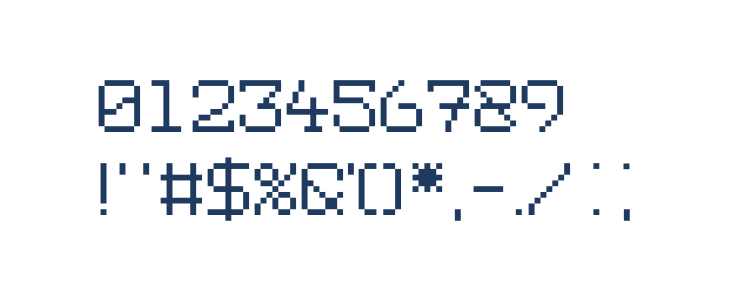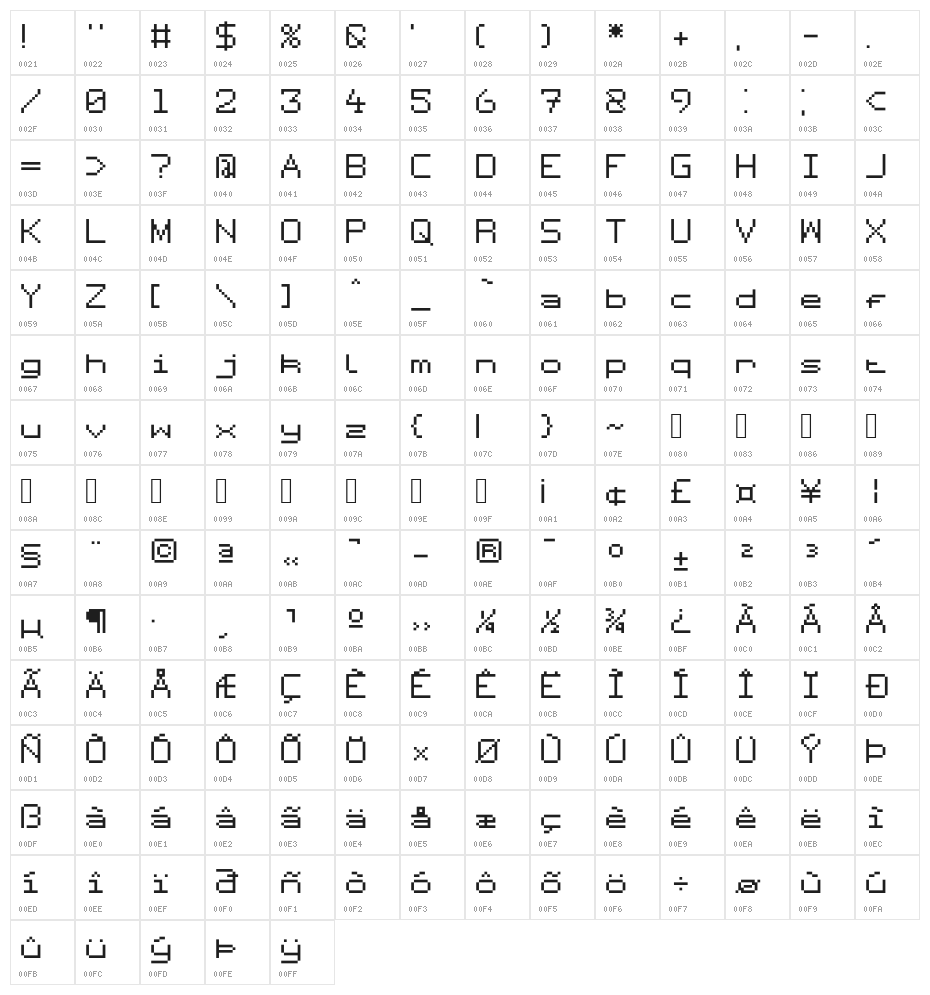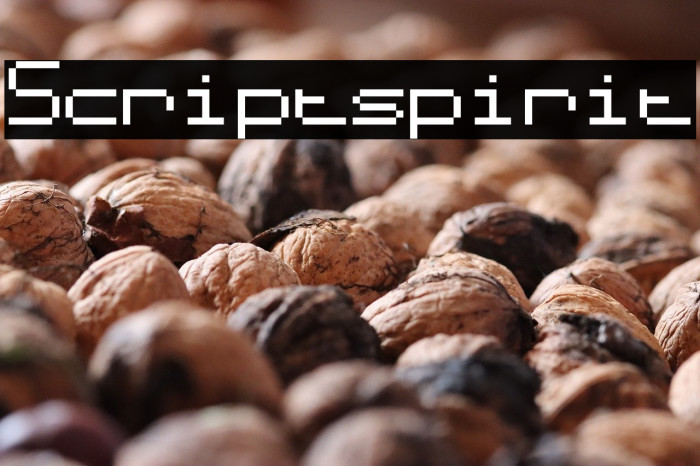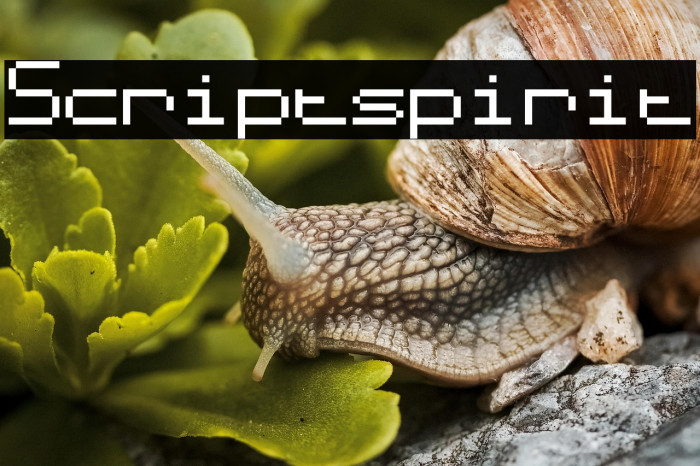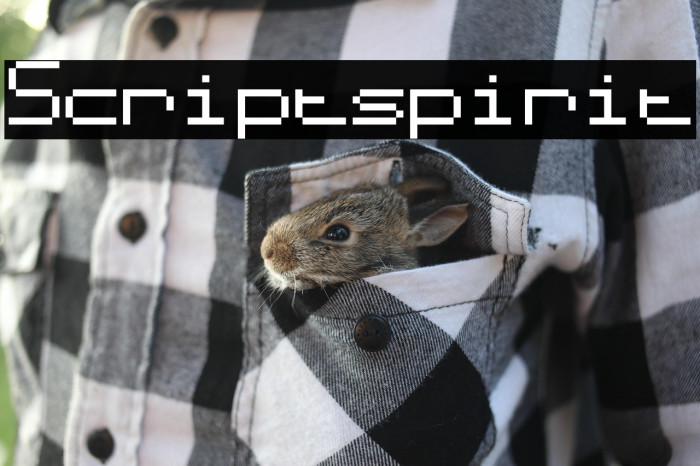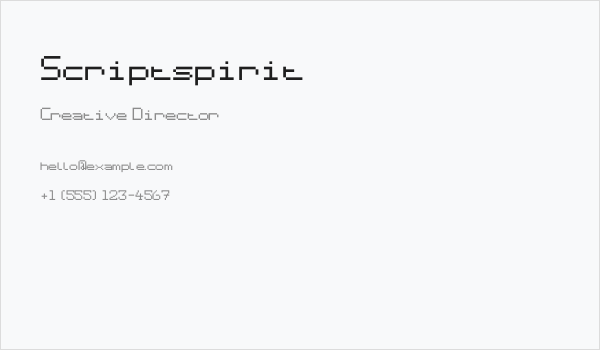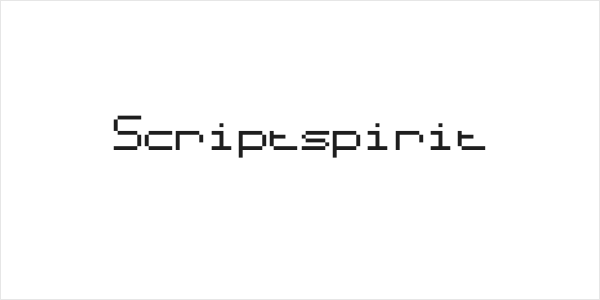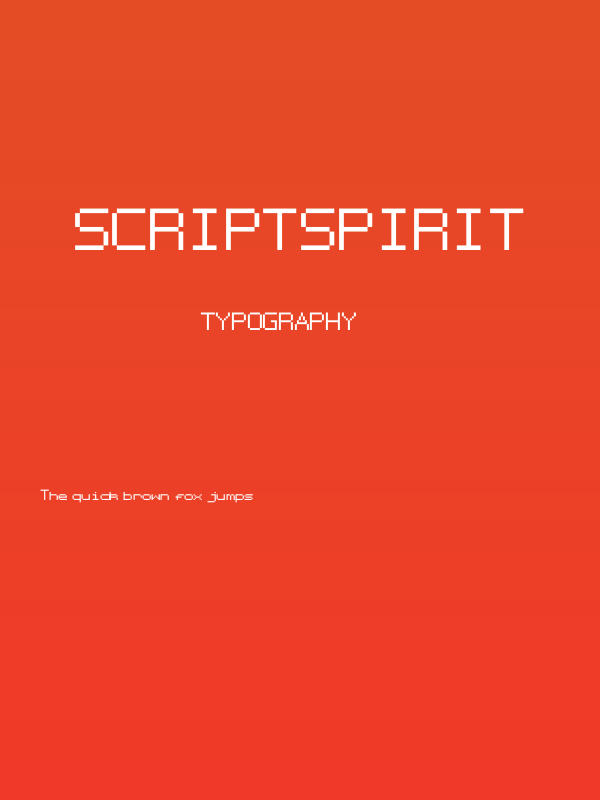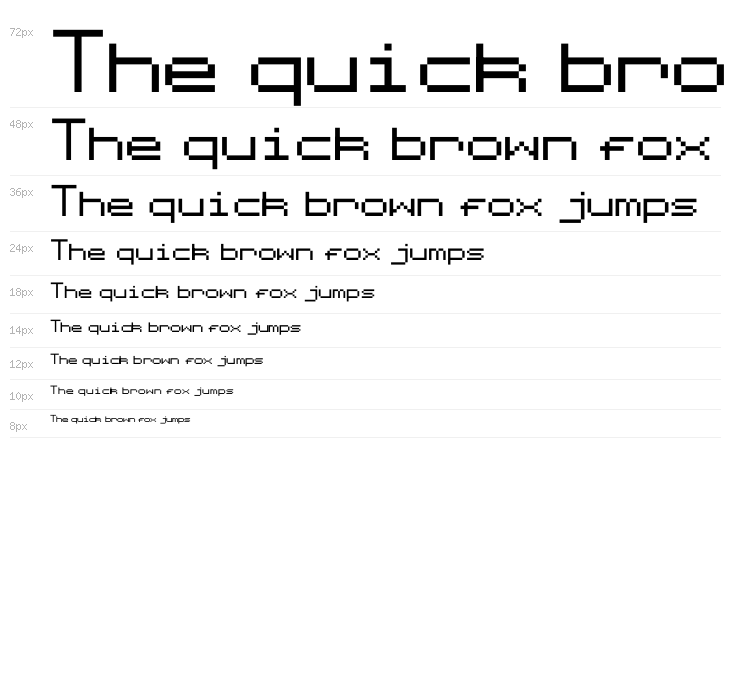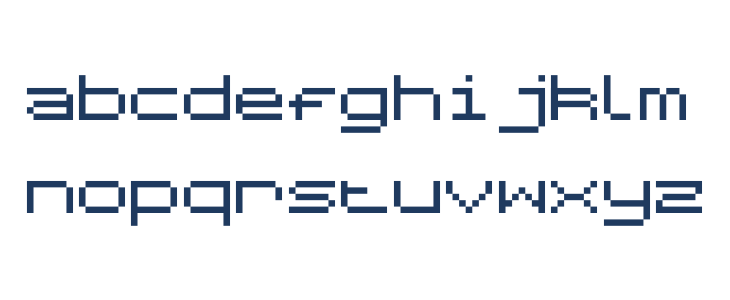
Scriptspirit Font
Scriptspirit Description
This font features a pixelated, grid-like structure reminiscent of early digital displays or retro video games. Each character is composed of square blocks, giving it a distinctly digital and mechanical appearance. The uniformity in the design creates a cohesive look across all characters, maintaining a consistent height and width. The uppercase and lowercase letters are easily distinguishable, with the lowercase being slightly smaller but maintaining the same blocky style. Numbers and special characters follow the same design principles, ensuring readability and consistency. This font evokes a sense of nostalgia for the early days of computing and digital art.
| Overall Style | Retro, Digital |
| Use Case | Headlines, Logos, Digital Art |
| Proposed Projects | Ideal for retro-themed designs, video game graphics, digital art projects, and any creative work that requires a nostalgic digital aesthetic. |